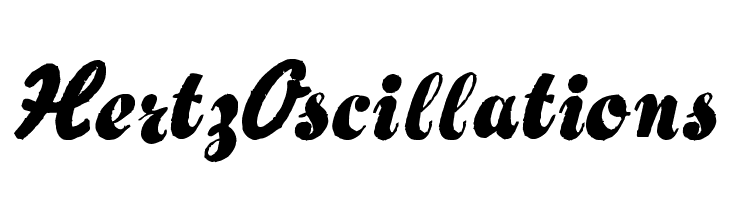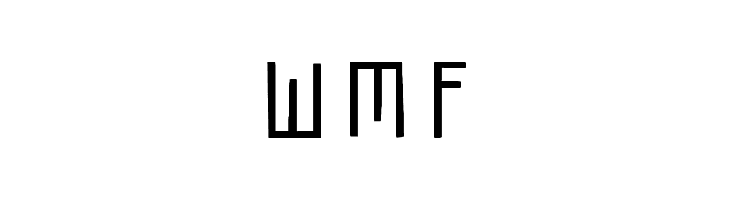
A bold, dynamic script font with high contrast and elegant flourishes.
A bold, wide slab serif font with a modern yet classic appeal.
A playful, handwritten font with smooth, rounded edges and a casual style.
A bold, geometric font with a modern and minimalistic style.
A bold and expressive script font with a handwritten style.
A clean, minimalist sans-serif font with a modern, geometric design.
A sleek, modern font with geometric lines and a minimalist style.
A bold, italicized font with a distressed, vintage texture.
A playful, cartoonish font with bold outlines and irregular shapes.
A bold, geometric font with sharp edges and a blocky style.